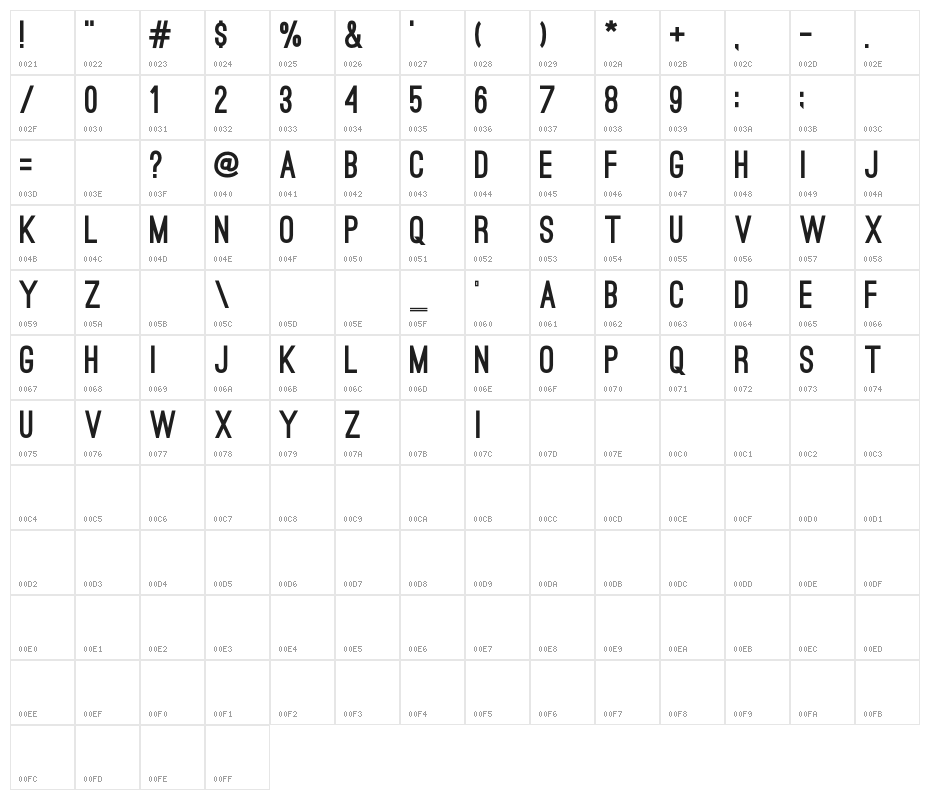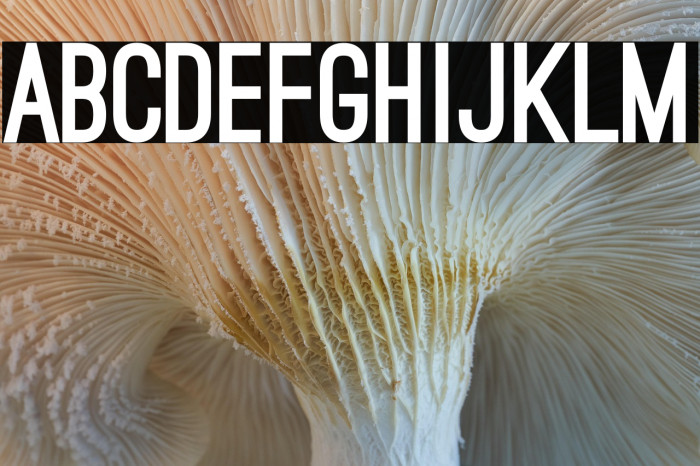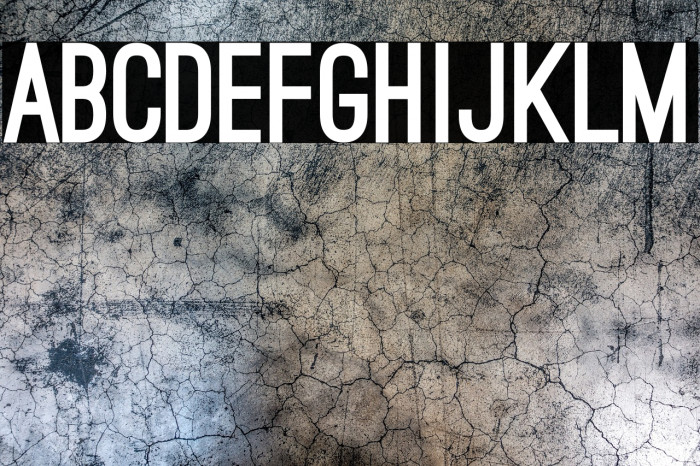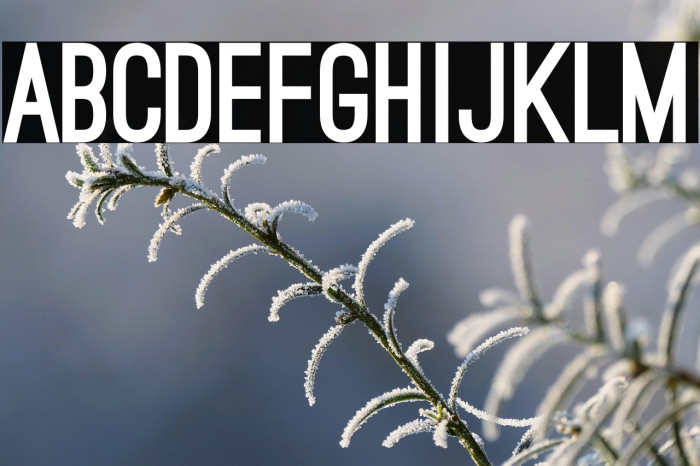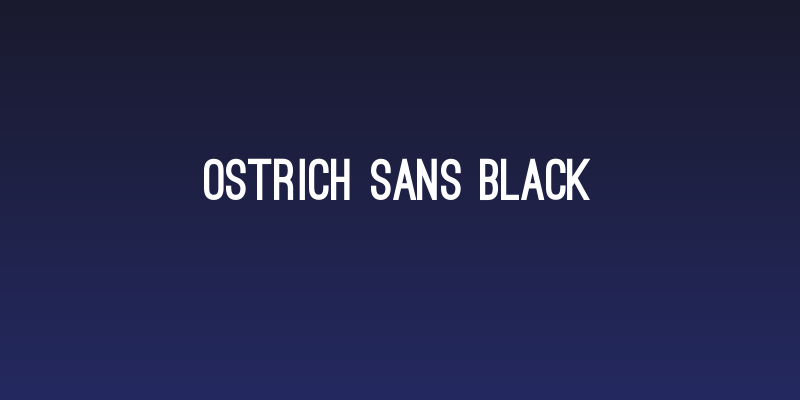
Ostrich Sans Black Font
Ostrich Sans Black Description
This font features a bold and modern sans-serif style with clean, straight lines and uniform stroke widths. The uppercase and lowercase letters are designed with a consistent height, providing a harmonious and balanced appearance. The numerals are clear and legible, making them suitable for various applications. The special characters are well-defined, maintaining the overall aesthetic of the font. Its simplicity and clarity make it ideal for use in headlines, posters, and branding materials where a strong visual impact is desired.
| Proposed Projects | Ideal for headlines, posters, branding, and advertising materials. |